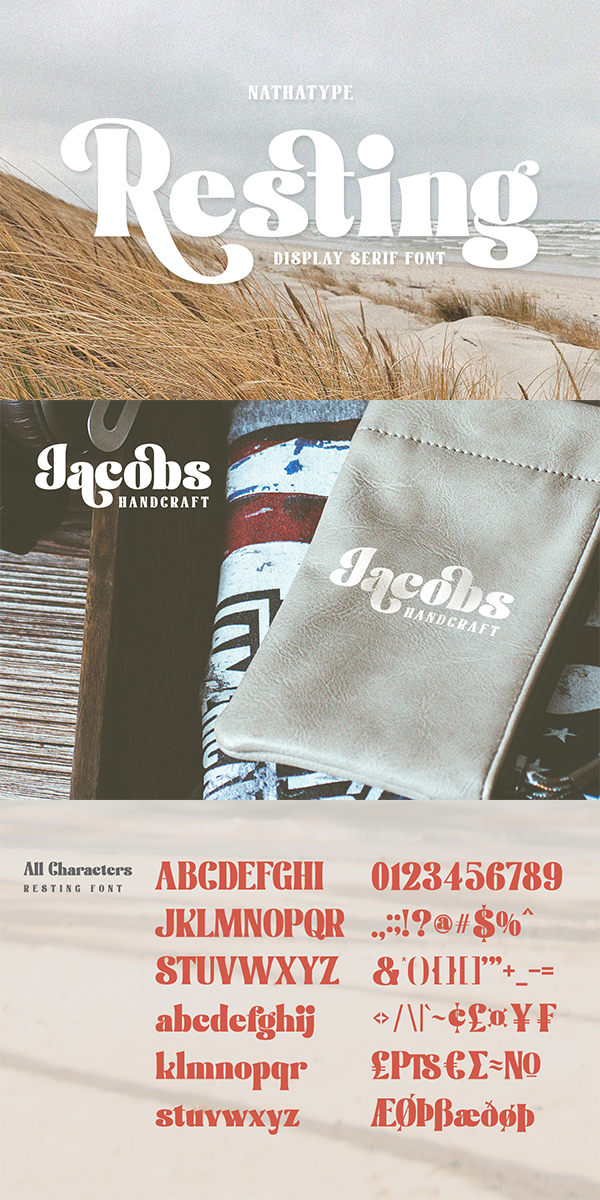
Resting Font
About Resting
Resting is a perfect display serif font for any of your design projects. Serif font is a font type with sticky small lines on the letters’ edges expressing formal, classic nuances and more aesthetic, creative touches due to the display font combinations. This display font has thick, high contrast lines perfect for catching attention and creating firm impressions. In addition, use this font for big text sizes for a legibility reason and make use of the other interesting features to beautify your designs.
Resting fits best for various design projects, such as brandings, posters, banners, logos, magazine covers, quotes, headings, printed products, invitations, name cards, merchandise, social media, etc. Find out more ways to use this font by taking a look at the font preview.